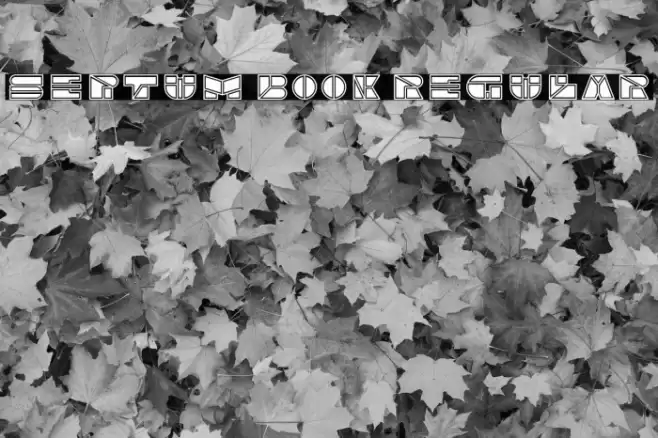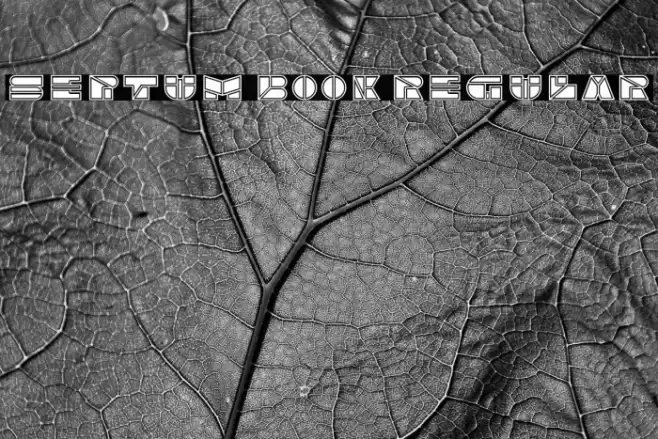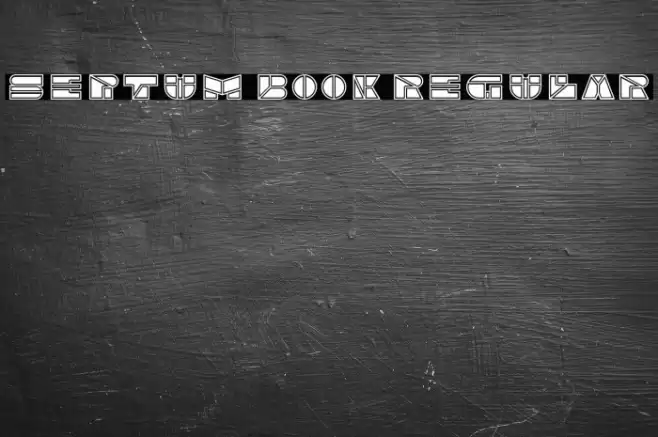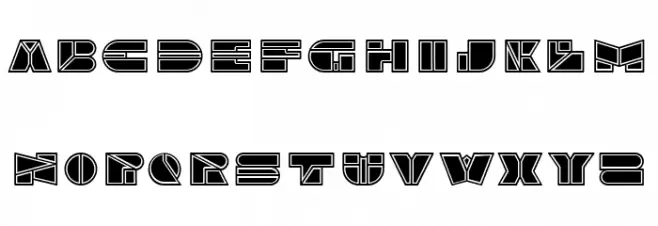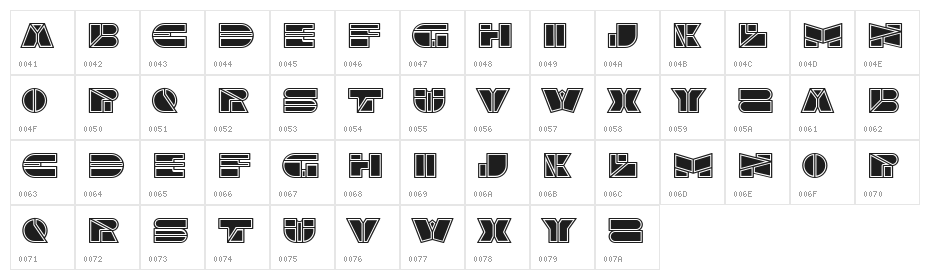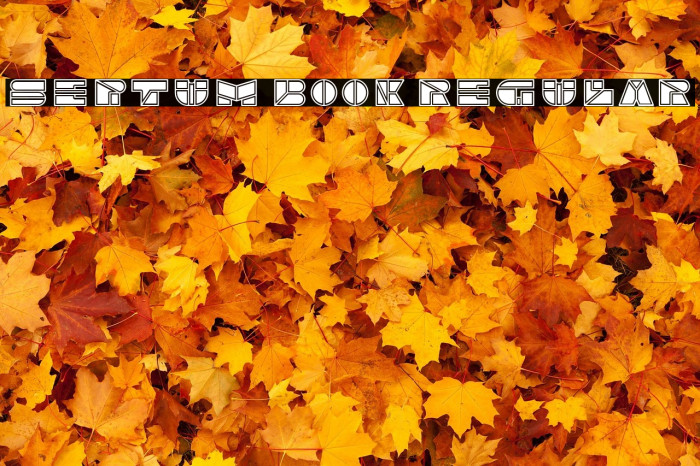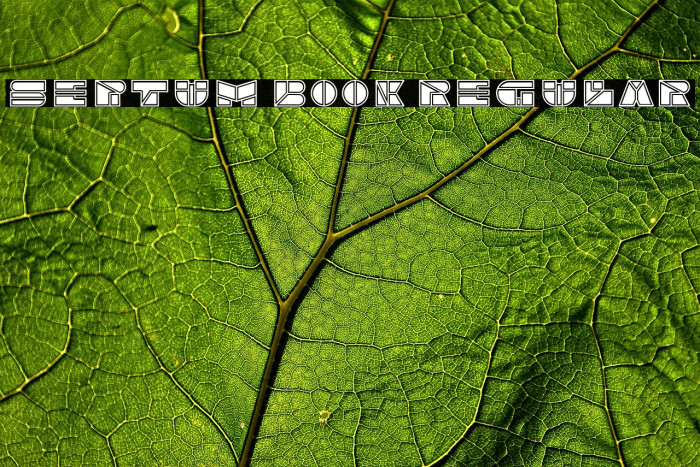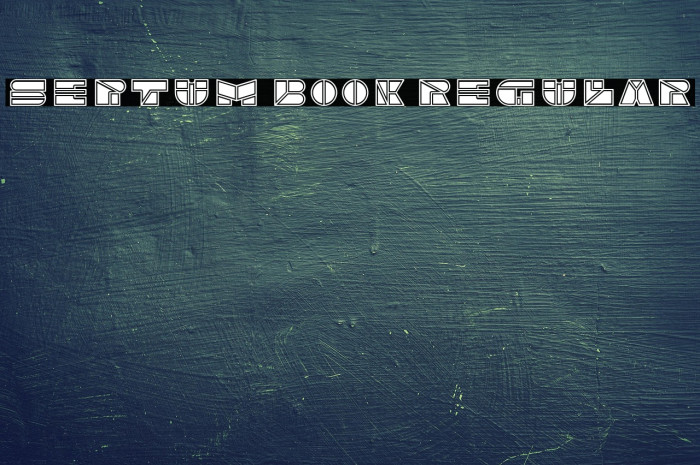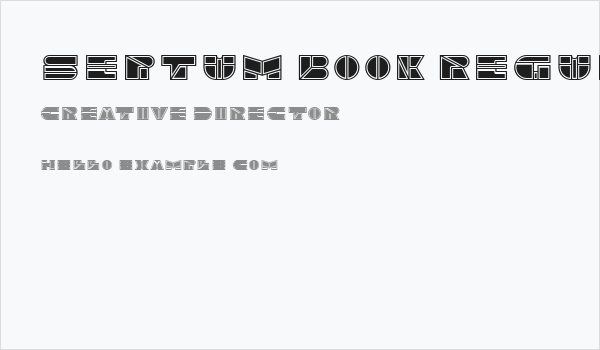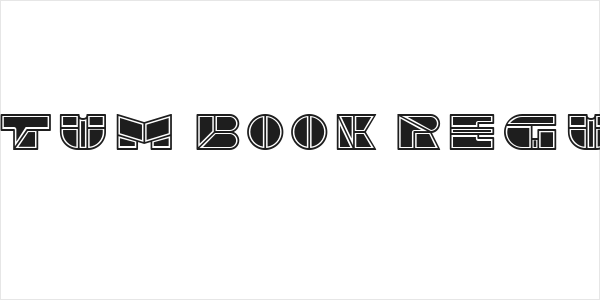
Septum Book Regular Font
Septum Book Regular Description
This font features a bold, geometric design with a distinct modern flair. Each character is constructed with thick, angular lines and sharp edges, creating a striking visual impact. The letters are composed of segmented parts, giving them a futuristic and industrial appearance. The use of negative space within the characters adds to the complexity and depth of the design. This font is highly stylized, making it ideal for projects that require a strong, attention-grabbing typeface. It is particularly well-suited for use in branding, posters, and other creative applications where a bold statement is needed.
A bold, geometric font with a modern, industrial style from Uncategorized fonts.
- Proposed Projects: Ideal for branding, posters, and creative projects requiring a bold statement.